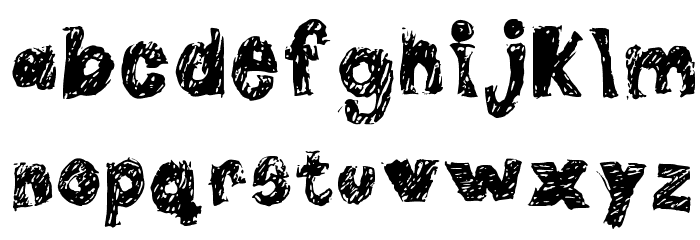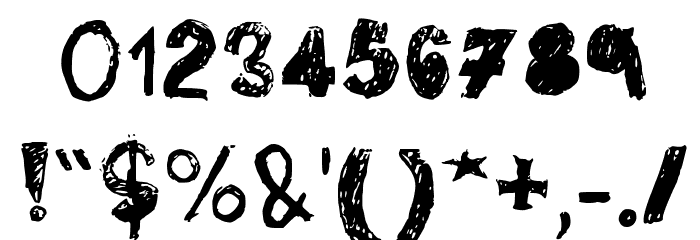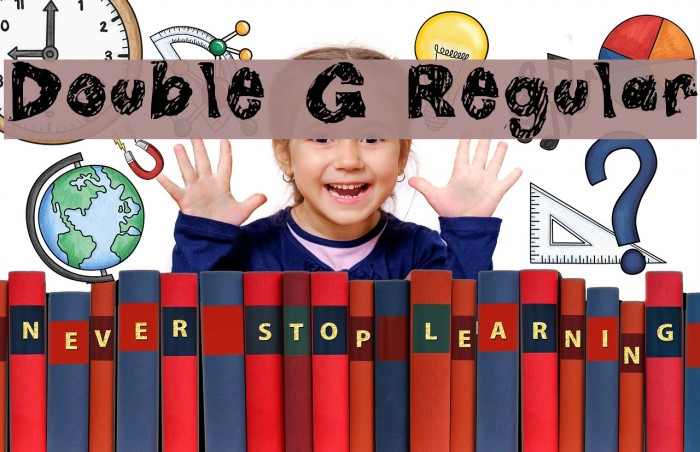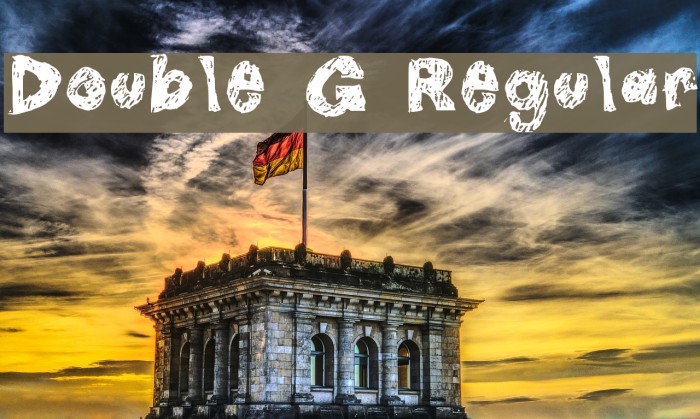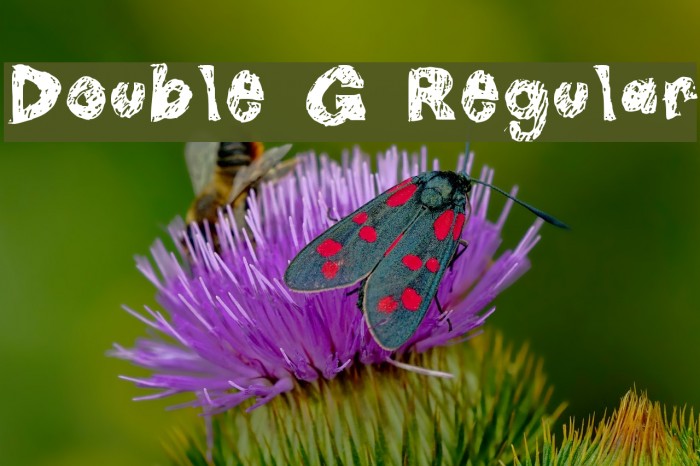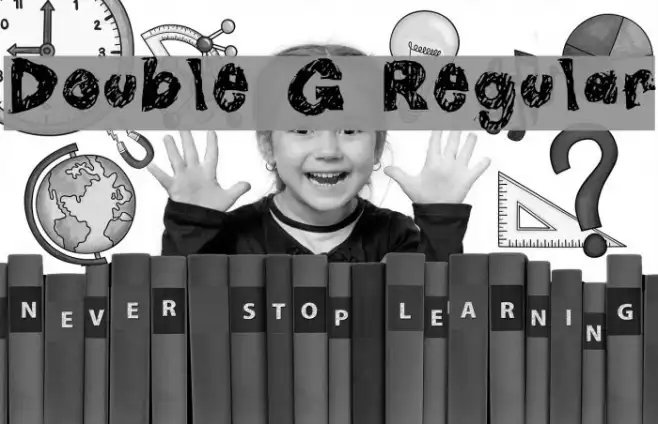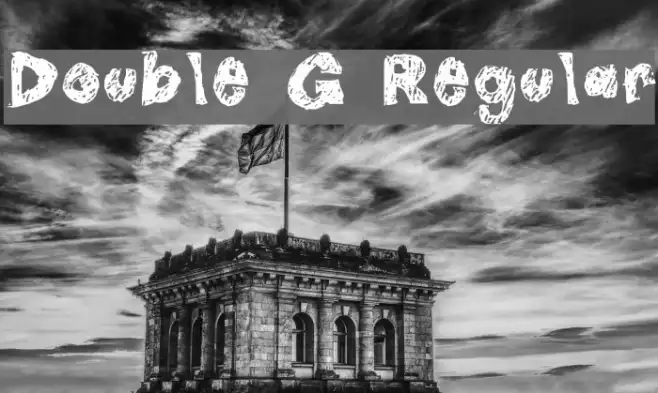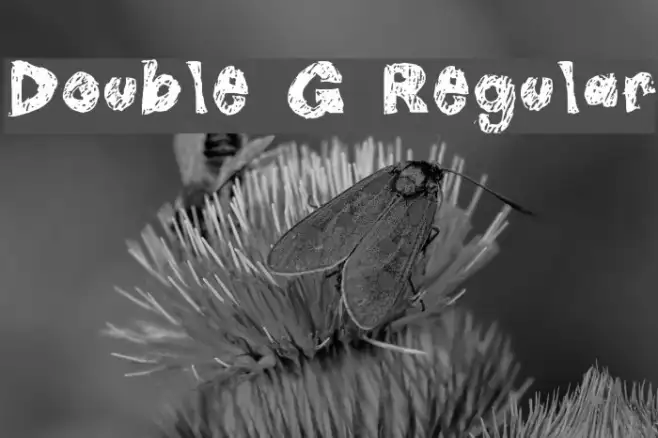
Double G Regular Font
This font features a bold, textured appearance with a hand-drawn aesthetic. Each character is filled with a rough, sketch-like pattern, giving it a dynamic and energetic feel. The letters are slightly irregular, adding to the handcrafted look. The uppercase and lowercase letters maintain a consistent style, while the numbers and special characters are equally expressive. This font is perfect for projects that require a playful and artistic touch, such as posters, album covers, or creative branding.
A bold, textured, hand-drawn font with a playful and artistic style.
- Proposed Projects: Ideal for posters, album covers, creative branding, and artistic projects.